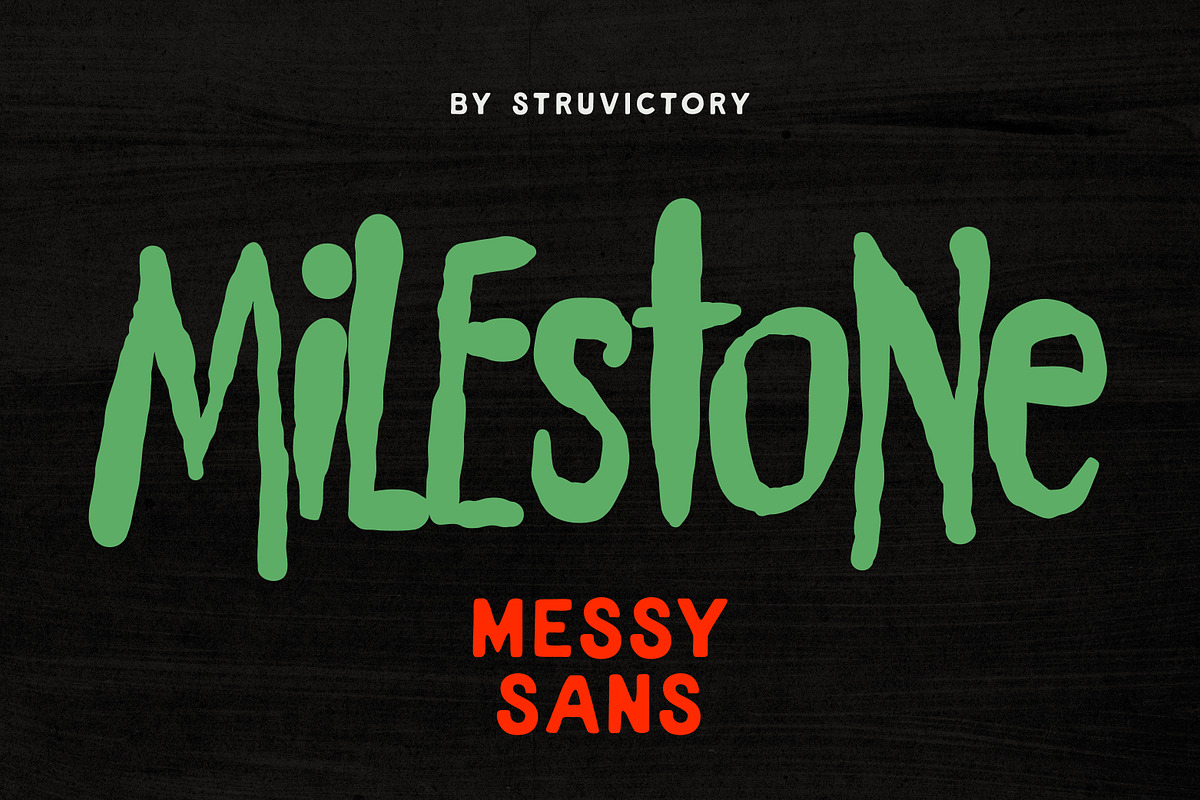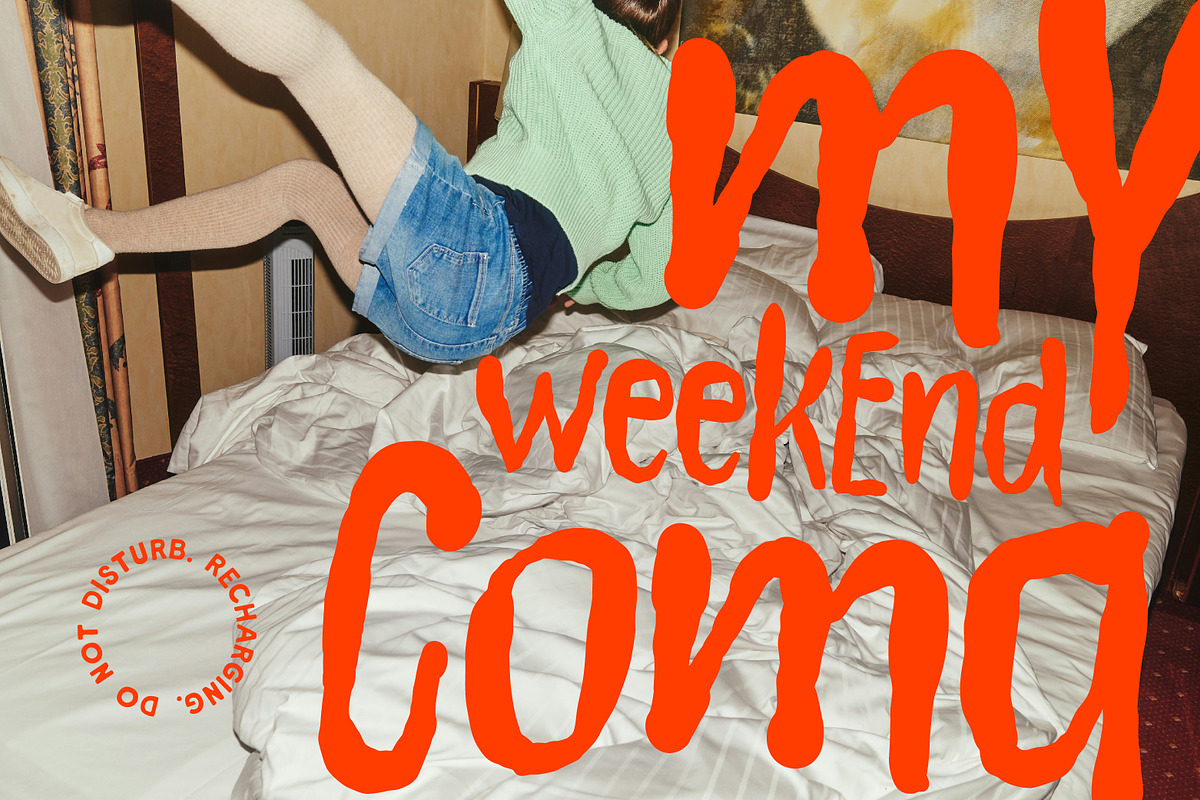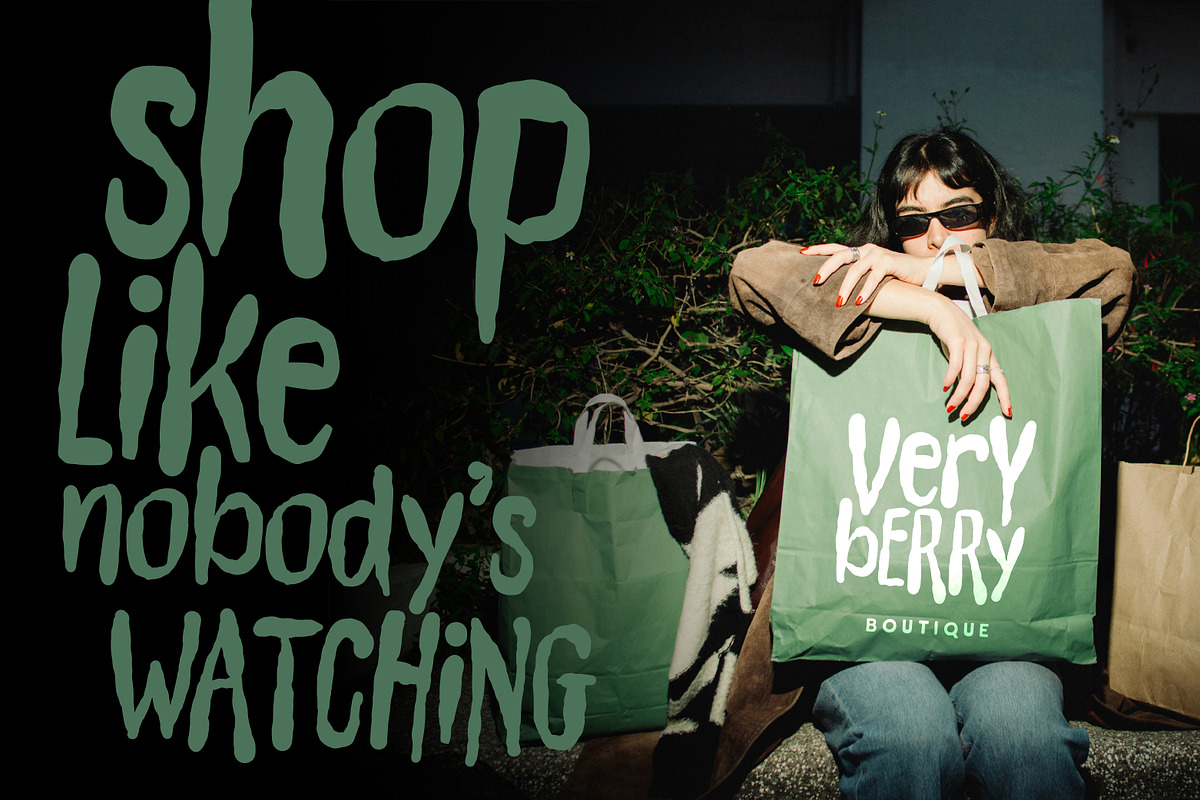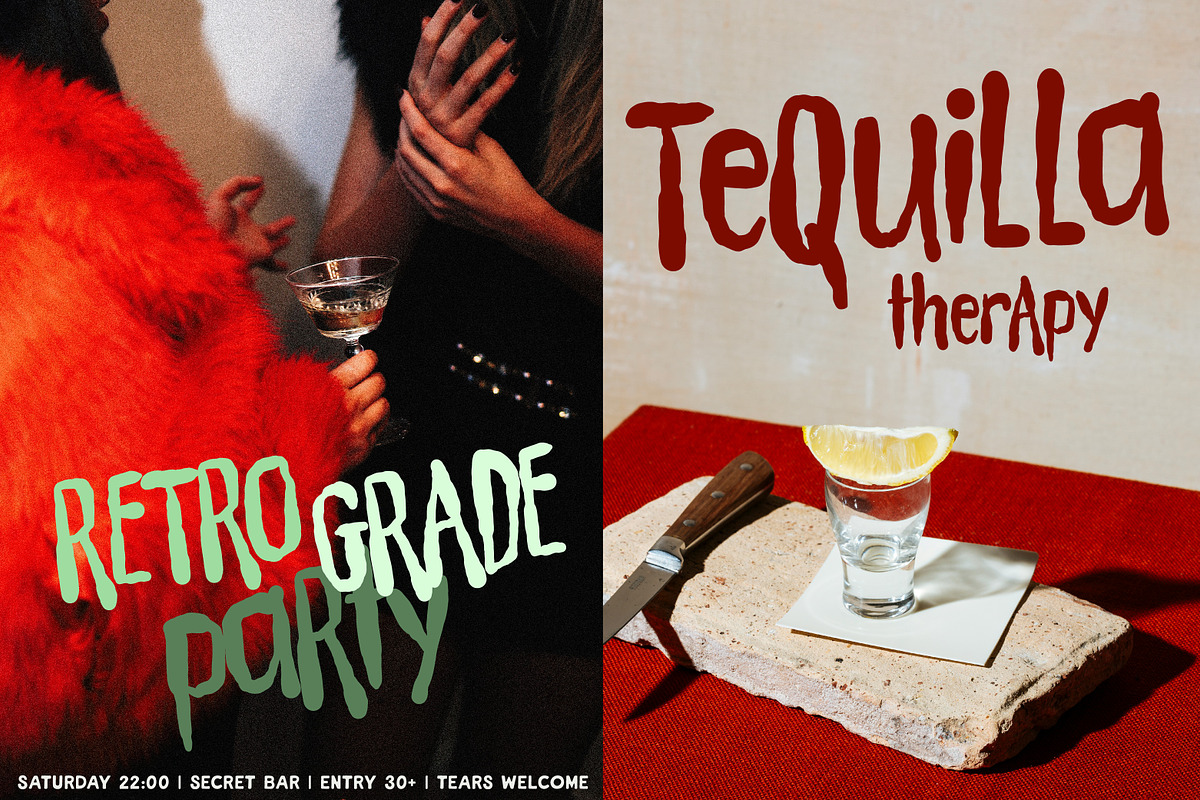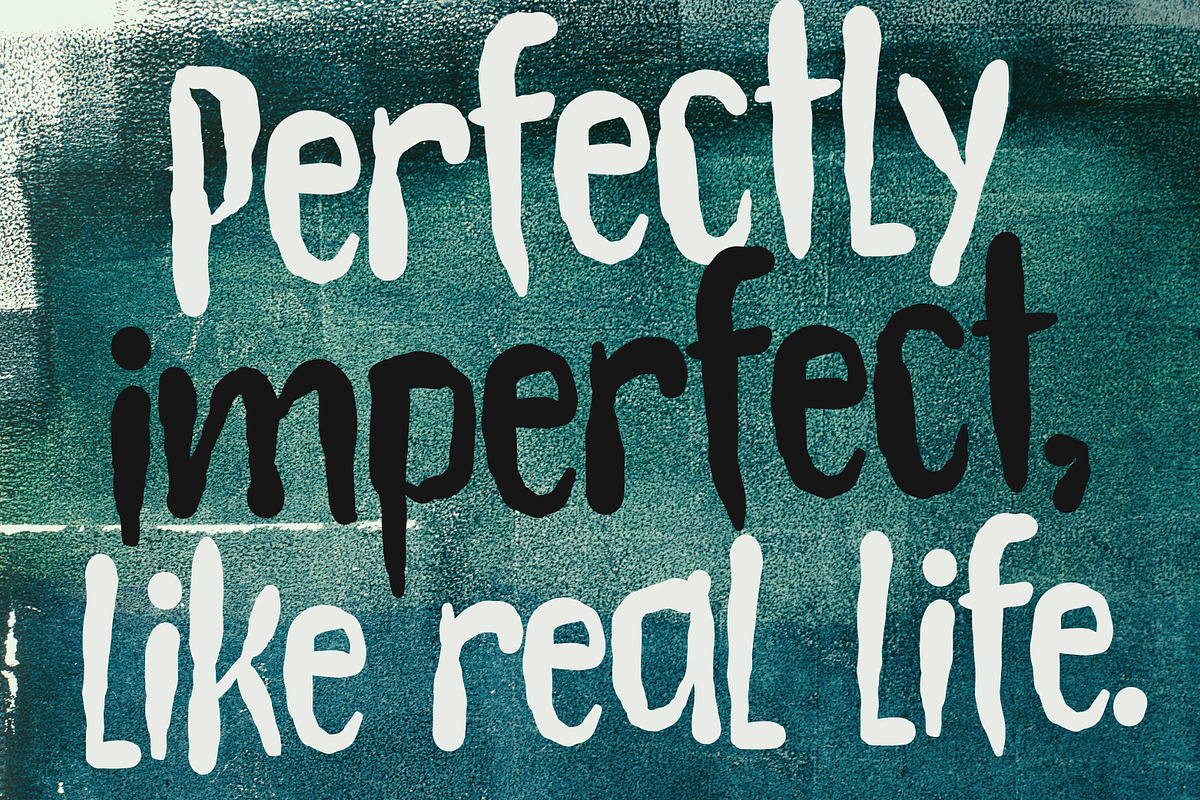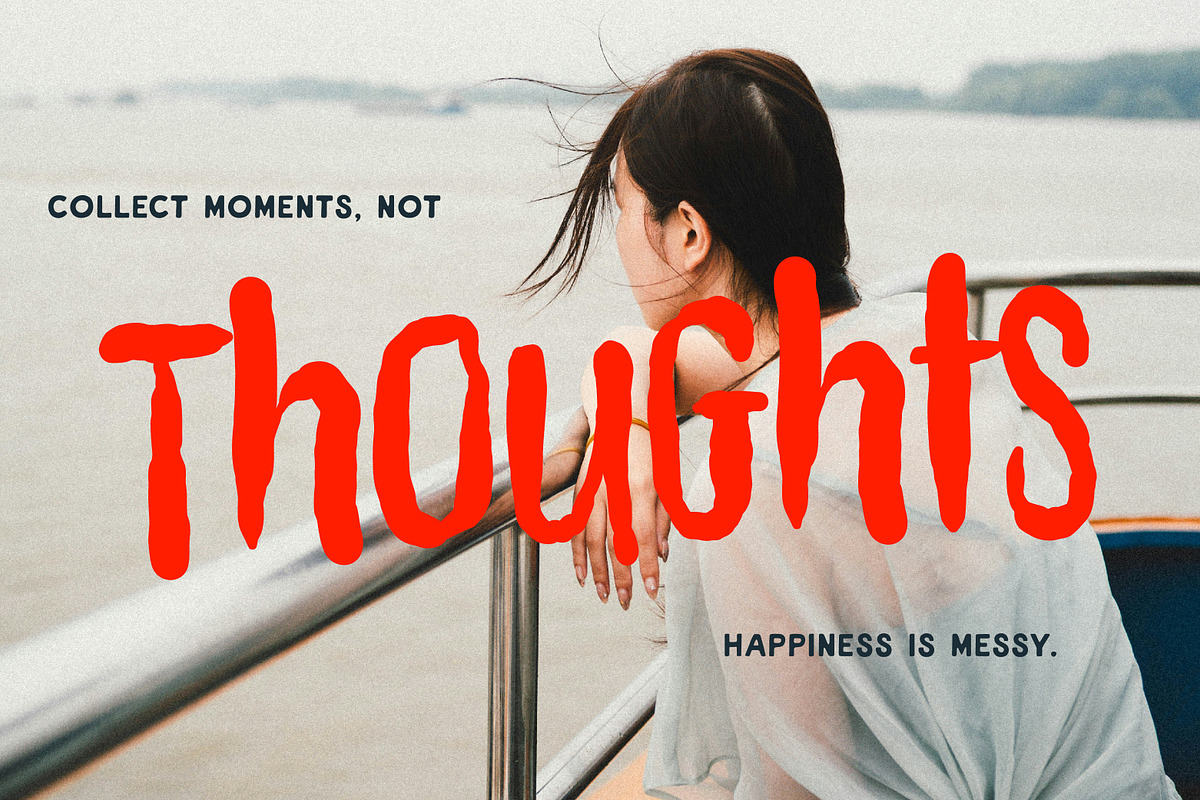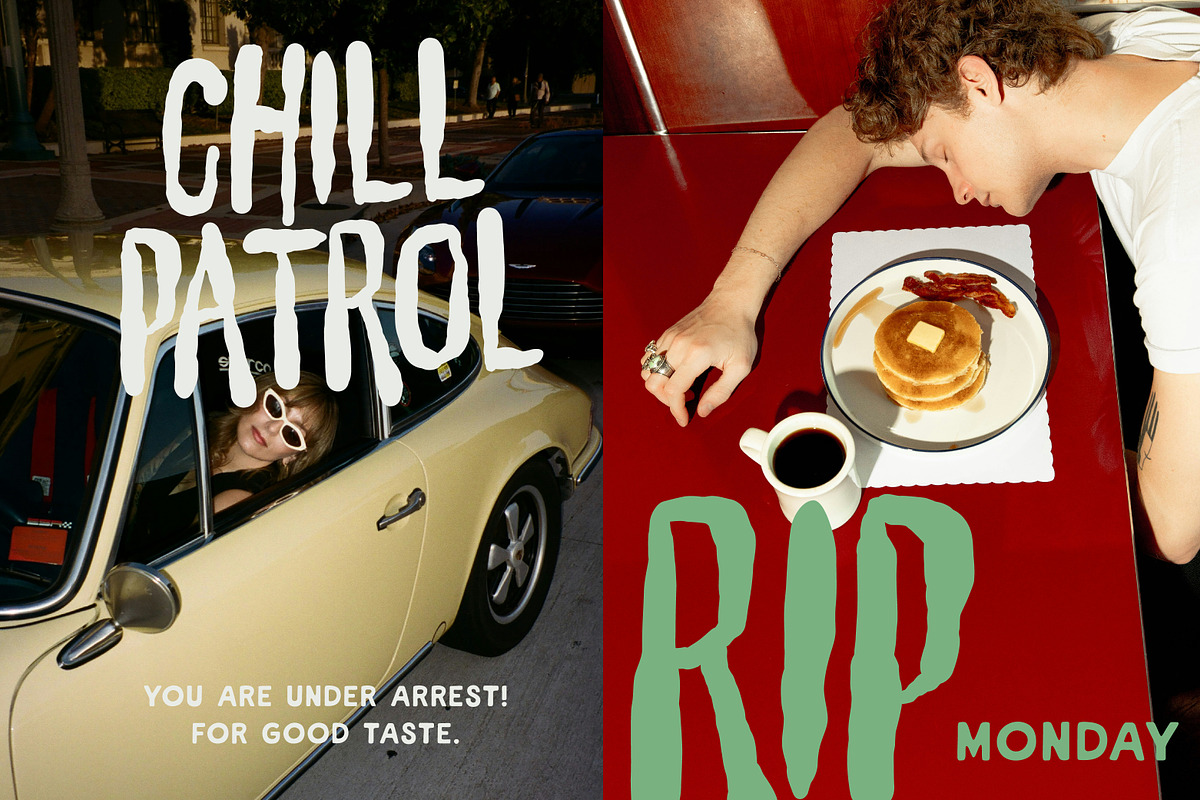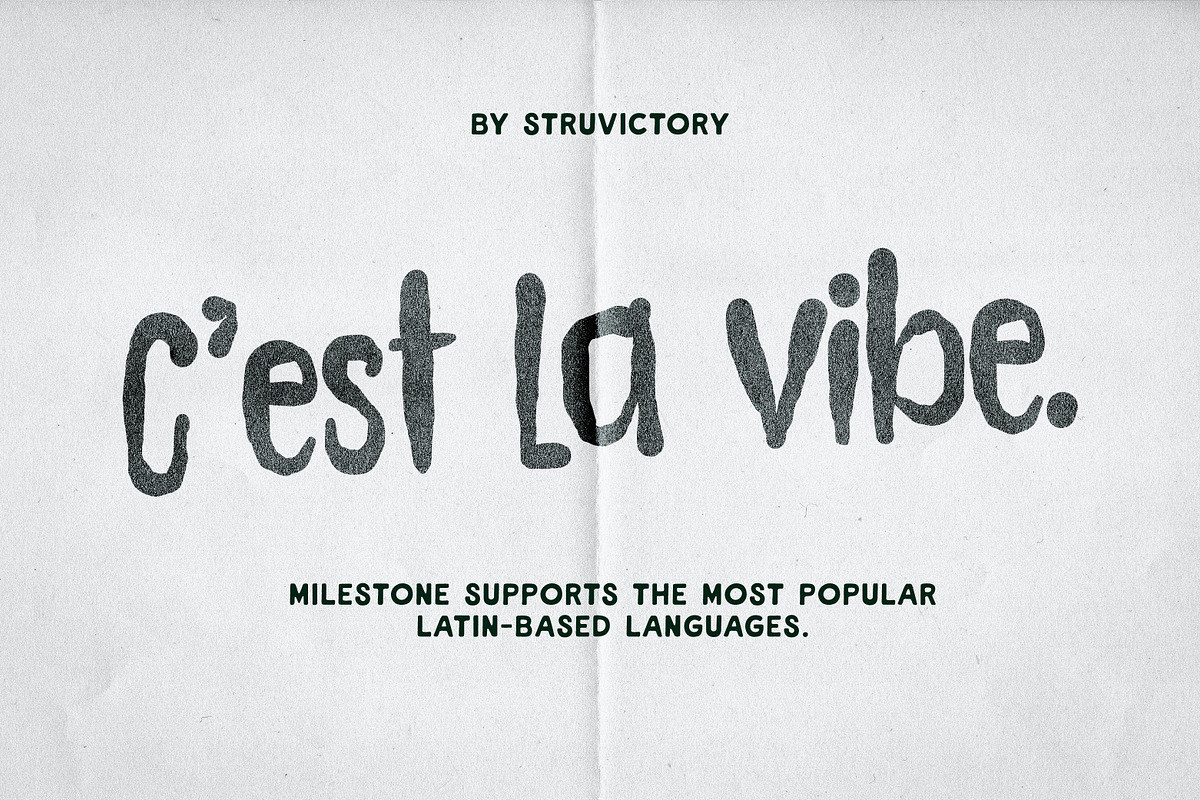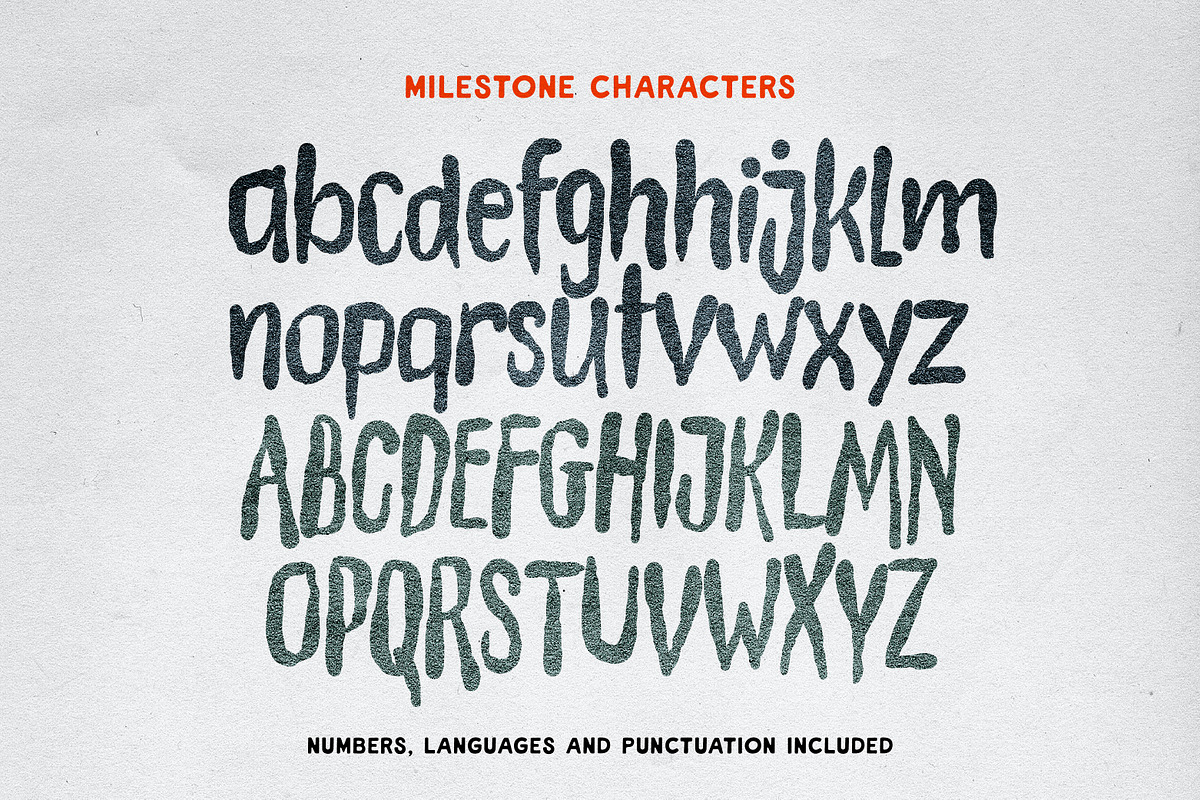
Milestone Handwritten Messy Sans
Milestone is an experimental messy sans-serif that captures the beauty of imperfection. Each letter carries a hand-drawn texture and uneven edges, creating a raw and spontaneous feel that stands out in modern design. Perfect for branding, posters, packaging, social media graphics, and editorial projects, Milestone adds a human touch to bold concepts. Whether you’re designing something playful, emotional, or imperfectly beautiful, this font turns every word into a statement.